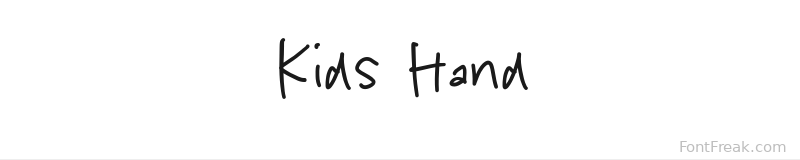
Kids Hand
About Kids Hand
The Kids Hand font by MJType is a charming handwritten typeface that captures the playful essence of childhood. Designed in 2023, this font falls under the decorative category, featuring a casual, hand-drawn style that evokes warmth and creativity. Its playful strokes exhibit a moderate weight with a consistent line thickness, making it highly legible while retaining a whimsical character. The spacing between letters is balanced, allowing for easy readability, which is essential for both print and digital applications.
Kids Hand is perfect for a variety of use cases that cater to a younger audience or evoke a sense of nostalgia. Ideal for children's book covers, this font can also enhance educational materials, making learning more engaging. It works wonderfully for birthday party invitations, adding a personal touch that reflects the joy of childhood celebrations. Additionally, the font is suitable for fun branding projects, such as local toy stores or kids’ activity centers, where a lighthearted aesthetic is key. Graphic designers and content creators will find this font particularly useful in crafting vibrant social media graphics aimed at parents or young audiences.
What sets Kids Hand apart is its unique ability to blend professional quality with the spontaneity of handwritten text. This font stands out not only for its charm but also for its versatility across various applications. For those interested in adding a playful note to their designs, the Kids Hand font free download is an excellent choice that brings creativity to life.